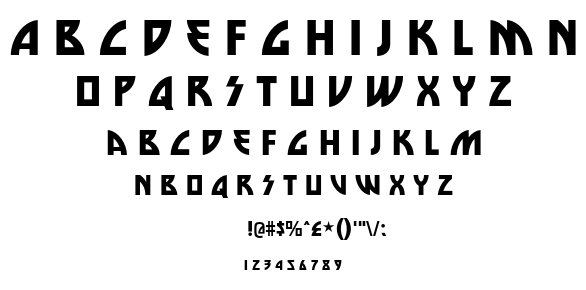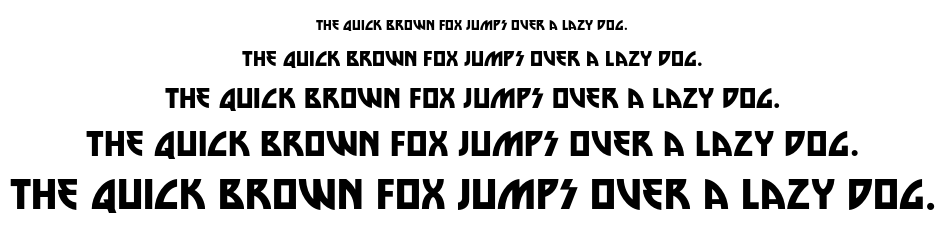
Die Nasty is a glamorous, Arts & Crafts headline font with a hard rock heritage. Don’t forget to read the files inside the zip for details. Updated in 2012.